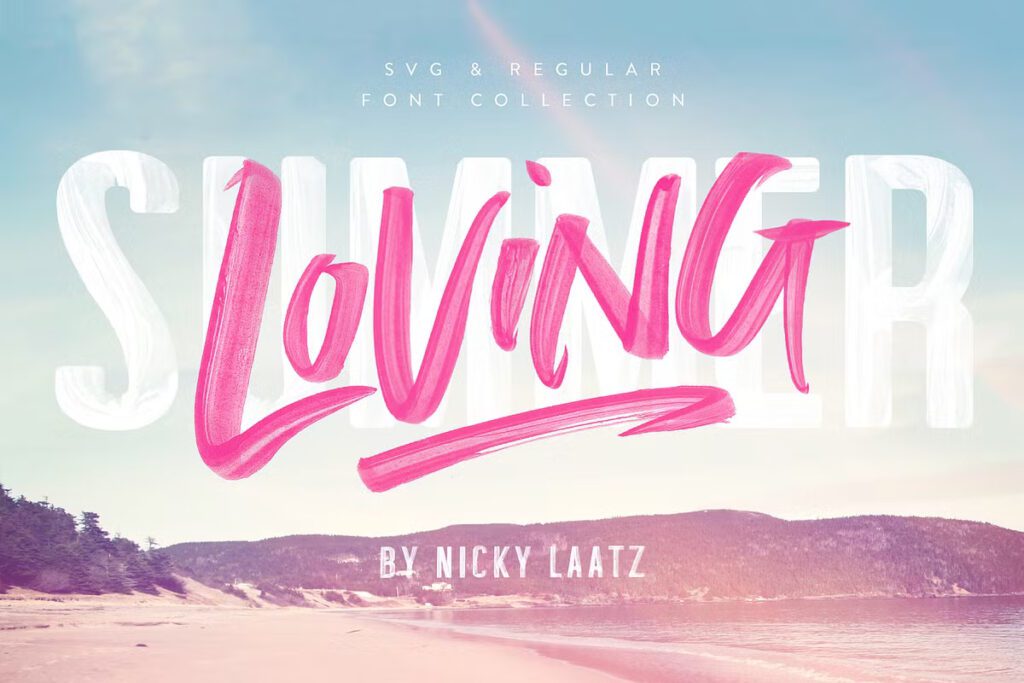
Get Creative with the Summer Loving Font Collection
Are you ready to add a vibrant, sun-kissed vibe to your designs? The Summer Loving Font Collection by Nicky Laatz brings the warmth and fun of summer right into your projects. With a range of textured and ultra-detailed fonts, this collection is a designer’s dream for creating authentic, hand-painted lettering without the hassle.
What Makes Summer Loving Special?
1. Ultra-Textured SVG FontsThe standout feature of the Summer Loving collection is its high-resolution SVG fonts, which are packed with paintbrush detail. These fonts save you time by providing a hand-painted look that is instantly ready for use in your designs.
2. Alternates and LigaturesTo add authenticity to your designs, the script font in this collection includes a full set of uppercase and lowercase alternate letters. You’ll also find natural-looking ligatures for common letter combinations, making your text flow more organically.
3. Versatility and StyleWhether you need a casual brush script or a clean sans-serif, this collection has it all. The Summer Loving Sans SVG Font adds a smooth, textured option for all-caps designs, while the Solid Brush Font offers a solid fill for more classic designs.
Perfect for Any Project
From branding and logos to social media posts, invitations, and packaging, the Summer Loving Font Collection brings a laidback, sunny vibe to any creative project. Plus, you get access to both SVG and regular font versions, ensuring that these fonts will work seamlessly in your preferred software.
What’s Inside?
Summer Loving SVG Font – Includes alternate letters, ligatures, and swashes.
Summer Loving Sans SVG Font – A textured, smooth-edged, all-caps sans-serif font.
Summer Loving Regular Script Font – A standard vector version of the Brush SVG Script font.
Summer Loving Solid Brush Font – A solid fill version of the Brush SVG Script font.
Summer Loving Solid Sans Font – A standard Opentype version of the Sans SVG font.
If you’re looking to elevate your designs with an authentic, textured, and summery vibe, the Summer Loving Font Collection is a must-have. Whether you’re creating personal projects or working on commercial designs, these fonts will make your work stand out.